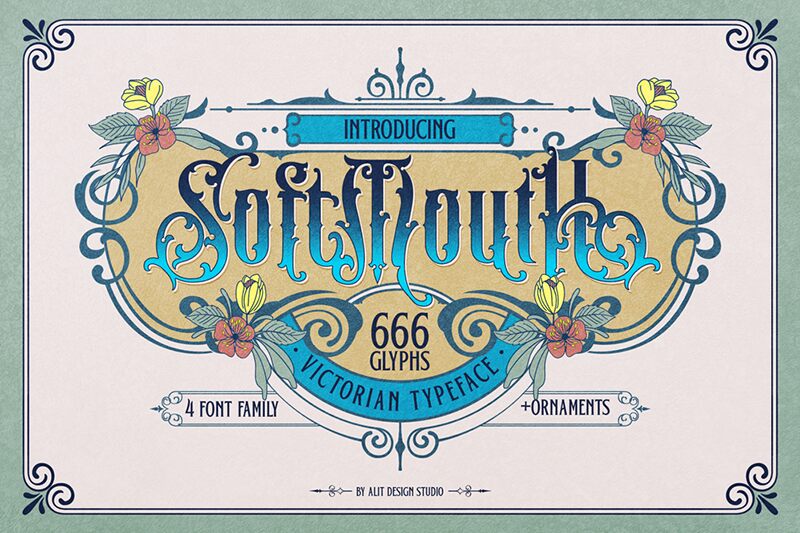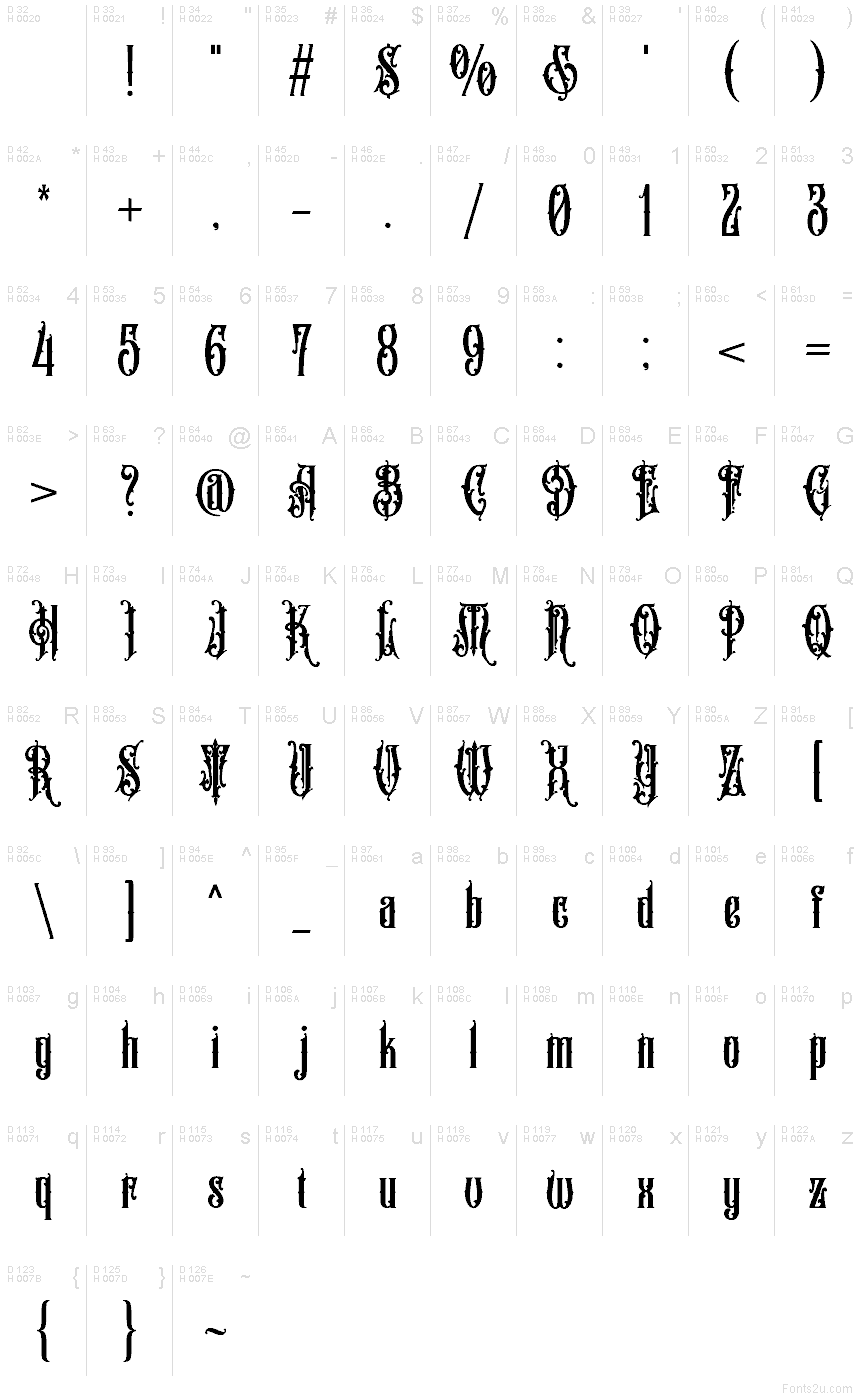
Soft Mouth Regular
Soft Mouth font by Alit Design is a retro display typeface with a unique, artistic vibe. Its intricate details and decorative elements reveal Gothic and medieval-inspired influences perfect for making bold typographic statements. This condensed font is eye-catching, and it instantly transforms even the simplest text by adding to it a dramatic touch.
The free display font makes an excellent choice for posters, typography slogans, branding projects like packaging or logos, as well as social media graphics. It can be freely used in iconography design, tattoos, stickers, apparel prints or labels of different kinds and types too.